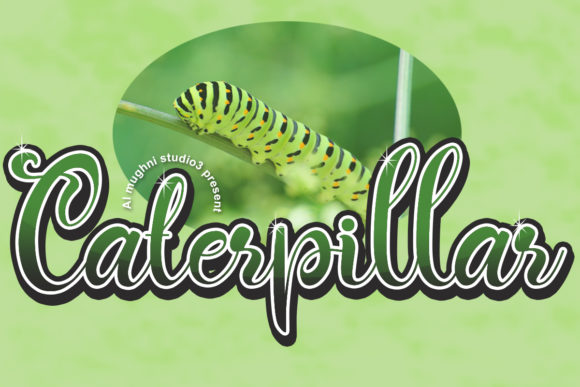
The Charm of Caterpillar Script Font: A Designer’s Delight
I still remember the time I was working on a wedding invitation project, and my client asked for a font that was both elegant and playful. I scoured the internet, tried out countless fonts, but nothing seemed quite right. That was until I stumbled upon Caterpillar Script Font. It was love at first sight! 💕 The flowing curves, the whimsical charm, and the elegance it brought to the design were exactly what I needed. In this article, I’ll share my experience with Caterpillar Script Font, its features, and how to make the most of it in your designs.
An Honest Review of Caterpillar Script Font
- ✨ Elegant and charming, perfect for wedding invitations, thank you cards, and quotes
- ✅ Beautifully crafted with attention to detail, giving it a handmade feel
- 🎨 Highly versatile, suitable for various design projects, from logos to greeting cards
- 👍 Easy to read, even in smaller sizes
While Caterpillar Script Font is a stunning font, it’s not without its quirks. ⚠️ Some users might find that it doesn’t work well with very short texts or headings, as it can appear a bit disconnected. Additionally, the font’s uniqueness might not be suitable for more formal or traditional designs.
🤔 Another thing to consider is that, like any script font, it can be a bit tricky to pair with other fonts. You’ll want to choose a font that complements its playful, yet elegant vibe.
The Backstory of Caterpillar Script Font
Caterpillar Script Font was designed with the intention of creating a beautiful, elegant script font that would bring a touch of whimsy to any design. The designer wanted to create a font that felt handmade, yet elegant and sophisticated. The result is a font that is both charming and refined, perfect for a wide range of design projects.
| Font Name | Caterpillar Script Font |
| Author | Al Mughni Studio3 |
Q: What is the best way to pair Caterpillar Script Font with other fonts?
A: When pairing Caterpillar Script Font with other fonts, it’s best to choose a font that complements its playful, yet elegant vibe. Some good options include serif fonts like Georgia or Times New Roman, or sans-serif fonts like Helvetica or Arial.
Q: Is Caterpillar Script Font suitable for body text?
A: While Caterpillar Script Font is beautiful, it’s not the best choice for body text. It’s better suited for headings, titles, and short texts where you want to add a touch of elegance and whimsy.